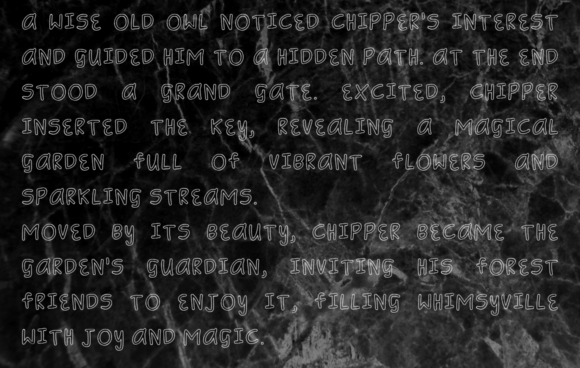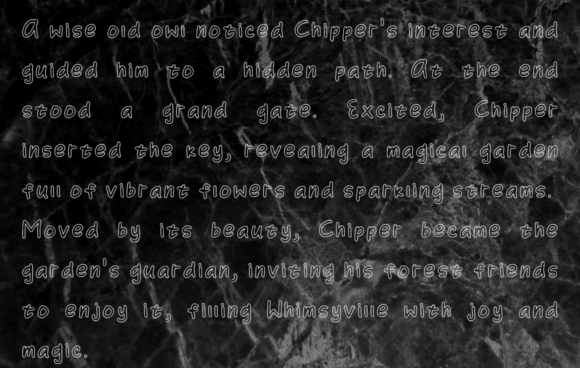
Introduction to Outline Handwriting Font
Elevate your creative projects with this Outline Handwriting font, a clean yet whimsical typeface designed to mimic effortless hand-lettering.
Its unique “hollow” design makes it incredibly flexible for layering over colorful backgrounds, patterns, or images without overwhelming your layout Whether you are designing custom apparel, teaching materials, or social media content, this font provides a friendly, approachable aesthetic that stands out.
Key Features of Outline Handwriting Font
Why Choose Outline Handwriting Font?
Outline Handwriting Font offers exceptional quality and versatility, making it a valuable addition to your design toolkit. Whether you’re creating for personal projects or commercial use, Outline Handwriting Font delivers professional results.